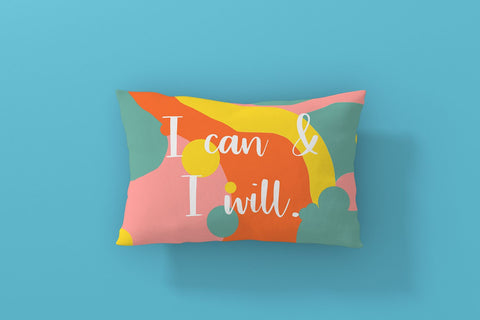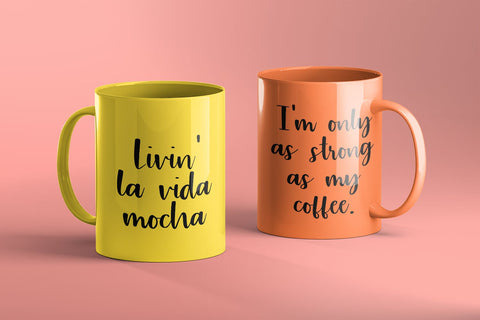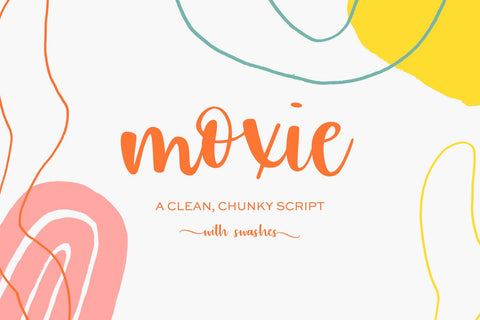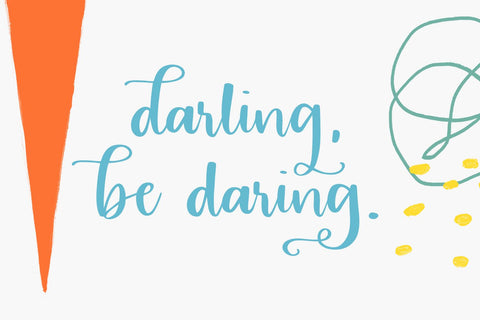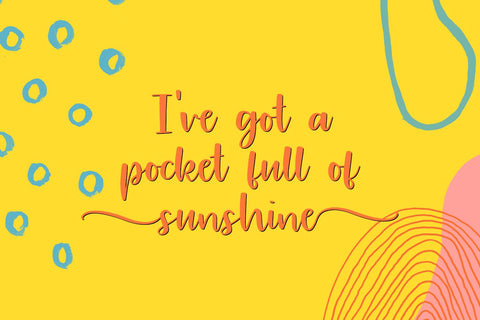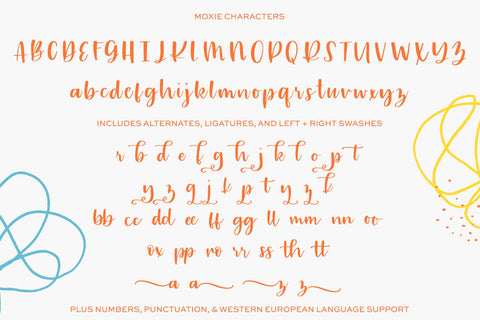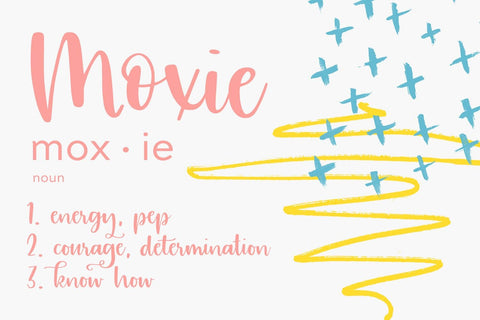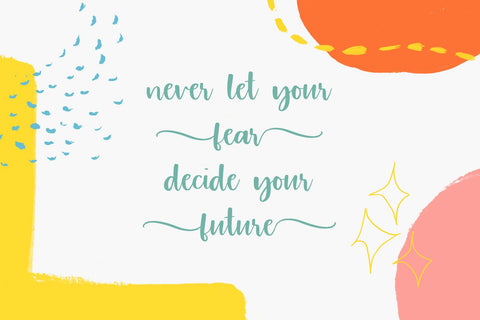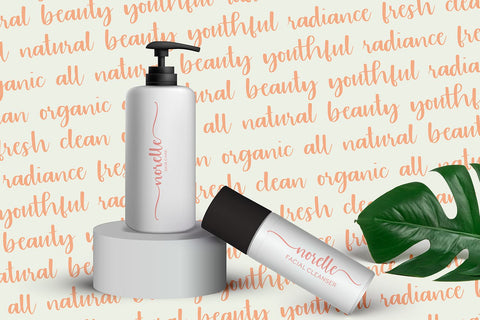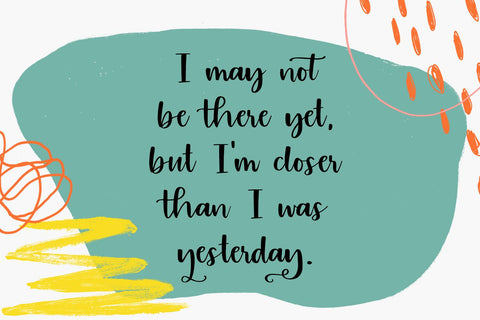
Moxie Modern Calligraphy Font
Introducing Moxie Modern Calligraphy Font, a handlettered script font with beautiful, flowing features. Moxie includes left and right swashes on standard lowercase letters, and also includes plenty of ornate alternates. Common ligatures are also a part of this script font’s robust features.
Moxie Modern Calligraphy Font is an excellent fit for:
– logos & branding projects
– print design, like magazines & flyers
– header elements + websites that need a bold, girly handwritten element
– quote graphics for social media
– crafting projects on Cricut or Silhouette machines, like tumblers, t-shirts, signage, & more
Moxie includes:
– full upper + lowercase characters
– numbers + punctuation
– Western European Language Support
– left & right swashes on lowercase letters (52 characters)
– 23 flourished alternates
– 17 common ligatures